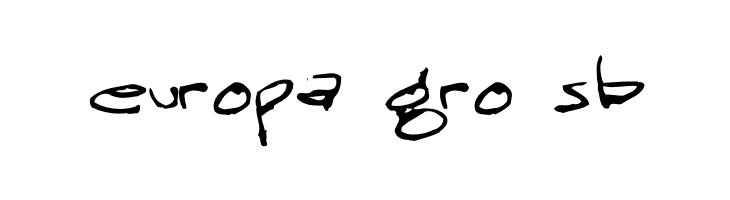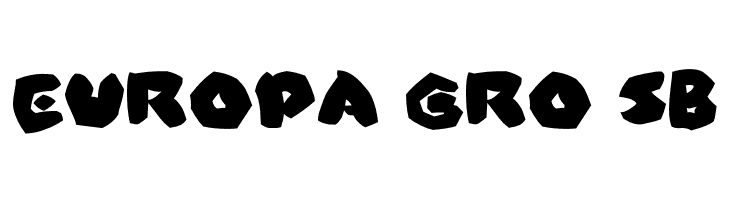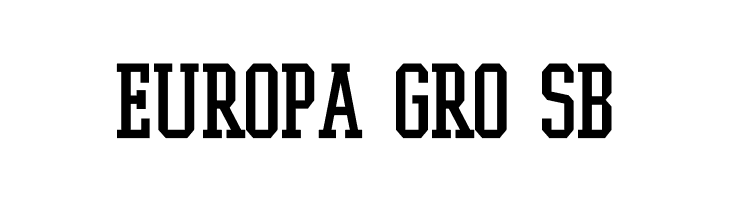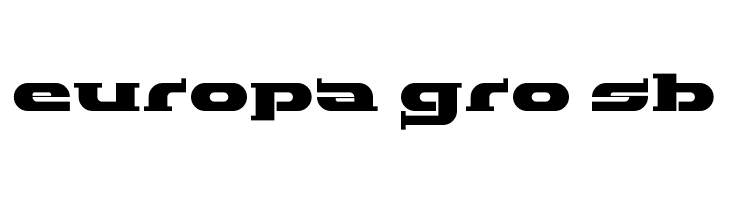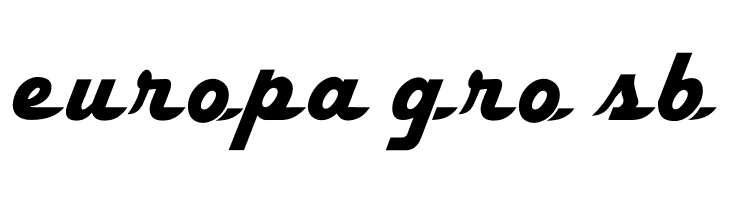
• Snippletweak
A decorative and intricate font with geometric embellishments and a futuristic style.
• Max
A modern, sleek font with elongated, narrow characters and consistent stroke width.
• Max Bold
A modern, geometric font with elongated, narrow letterforms and a sleek design.
• Glasnost
A bold, decorative font with a retro, three-dimensional style.
• Highlights Condensed
A bold, condensed font with a textured, distressed vintage style.
• ScritchyEye
A raw, hand-drawn font with jagged, energetic strokes.
• OhThat Shark
A bold, jagged font with a playful, shark-like appearance.
• College Boy
A bold, collegiate-style serif font with strong, block-like serifs.
• Helga Broad
A bold, geometric font with a modern, industrial feel.
• Fleetwilly
A bold, italicized font with a dynamic and energetic style.